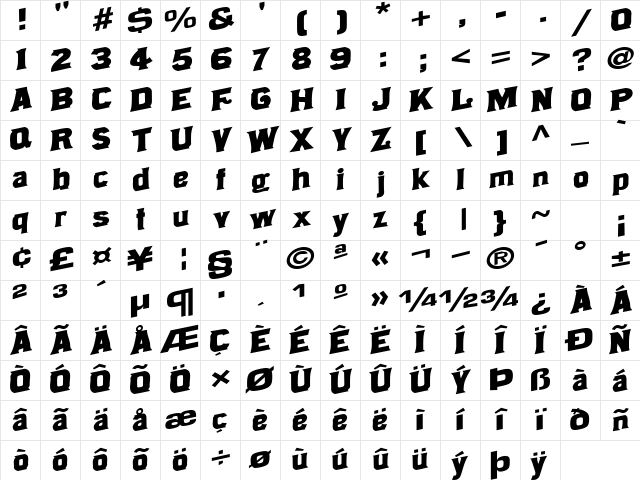
Wagon Regular
Wagon Family
Wagon Regular
Design Context for Wagon
Wagon is a composed and adaptable typeface that performs quietly and consistently across a wide range of design contexts.